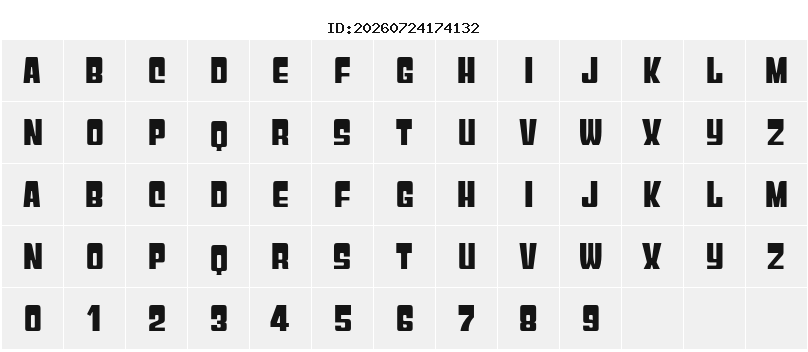
Gyparody Hv Preview
• Font Name: Gyparody Hv
• Designer: Ray Larabie
About Gyparody Hv.ttf
Gyparody Hv.ttf is a modern, elegant sans-serif font designed for ultimate readability and visual harmony. Perfect for branding, headlines, web design, and print materials.